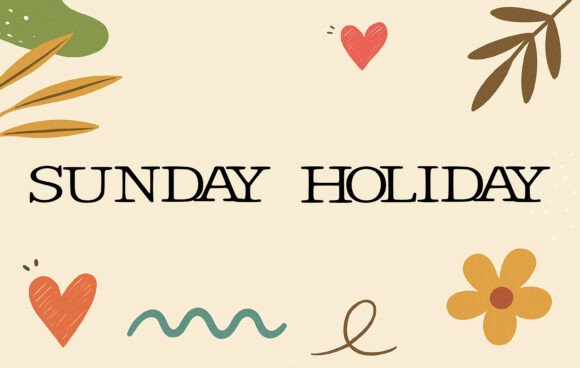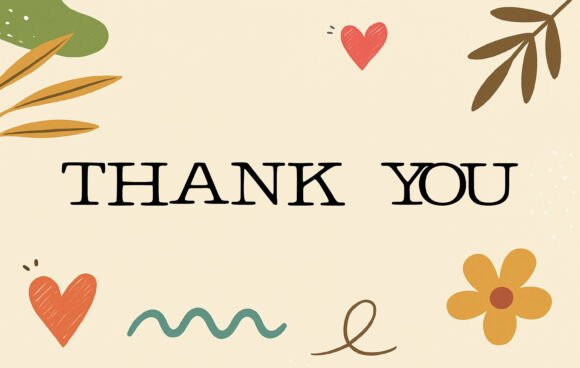
Discover the Versatility of Clara Font: Elevate Your Designs to New Heights
In the world of typography, fonts play a crucial role in bringing creative ideas to life. Among the numerous fonts available, Clara Font stands out as a true favorite among designers and crafters. This font is designed to be a game-changer, offering a perfect blend of legibility, style, and versatility. Whether you’re working on magazine headlines, t-shirts, social media graphics, branding, wedding invitations, or cards, Clara Font is the perfect choice to take your designs to the highest level.
Legible and Visually Appealing
One of the key features that make Clara Font a standout is its exceptional legibility. This font is designed to be easy to read, making it perfect for both title and body text. Its clear and crisp lines ensure that your message is conveyed effectively, regardless of the medium. Moreover, Clara Font looks great in various design applications, from digital screens to print materials. Its visually appealing design makes it an excellent choice for designers who want to create stunning visuals that capture their audience’s attention.
Clara Font’s versatility is one of its most significant advantages. This font can be used in a wide range of design projects, including:
• Magazine Headlines: Create eye-catching headlines that grab readers’ attention with Clara Font’s bold and stylish design.
• T-Shirts: Design custom apparel that stands out with Clara Font’s unique and fashionable style.
• Social Media: Elevate your social media presence with Clara Font’s modern and engaging design.
• Branding: Establish a strong brand identity with Clara Font’s professional and sophisticated look.
• Wedding Invitations: Create beautiful and elegant wedding invitations that set the tone for the special day.
• Cards: Design stunning greeting cards that showcase Clara Font’s versatility and charm.
Why Choose Clara Font?
With so many fonts available, why should you choose Clara Font for your design projects? Here are a few compelling reasons:
• Unique Style: Clara Font offers a distinctive style that sets it apart from other fonts.
• High Legibility: This font is designed to be easy to read, making it perfect for both title and body text.
• Versatility: Clara Font can be used in a wide range of design applications, from digital to print.
Tips for Using Clara Font
To get the most out of Clara Font, here are a few tips to keep in mind:
• Experiment with Sizes: Clara Font looks great in various sizes, from small body text to large headlines.
• Play with Colors: Try different color combinations to find the perfect match for your design.
• Mix and Match: Combine Clara Font with other fonts to create a unique and visually appealing design.
Clara Font is a versatile and stylish font that has the potential to elevate your creative ideas to new heights. With its exceptional legibility, visually appealing design, and endless design possibilities, this font is perfect for designers and crafters who want to create stunning visuals. Whether you’re working on a magazine headline, t-shirt, social media graphic, or wedding invitation, Clara Font is the perfect choice. So why wait? Discover the power of Clara Font and take your designs to the next level!